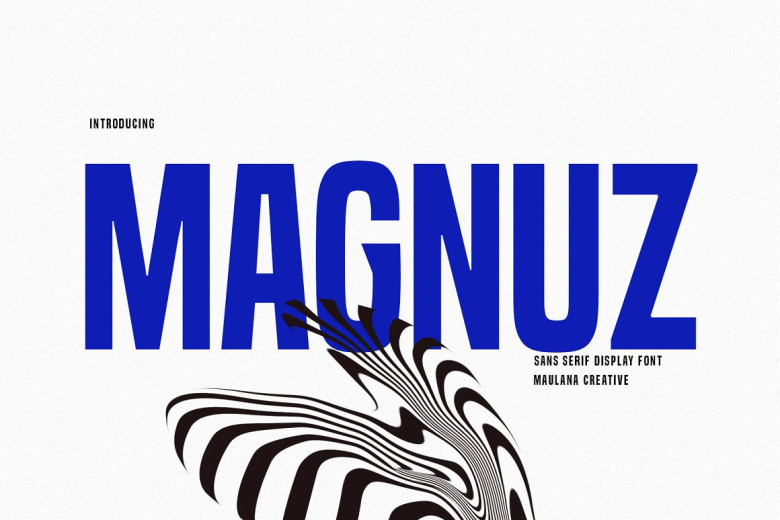
Magnuz Font
Magnuz font is a condensed sans classic font with bold strokes, fun characters and several ligatures for extra-creative work. Magnuz font also supports multilingual support of over 100 languages!
Magnuz Font can be used for logo designs, social media posts, movie titles or book titles. Furthermore, this font can also be utilized for short texts with long letters as well as secondary fonts with serifs or scripts to help create beautiful works of art. Magnuz font will help you craft stunning works.
Magnuz Sans Serif Display Font